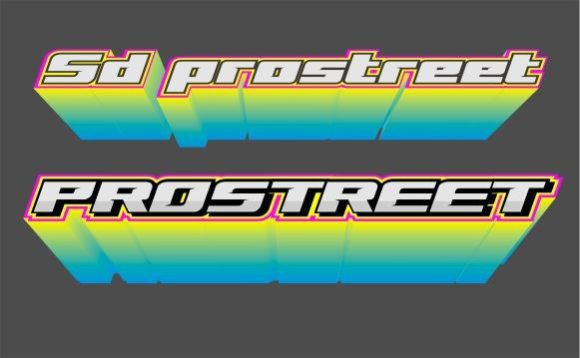
Prepare yourself to be captivated by the futuristic charm of Sd Prostreet Font, a captivating creation by Siinsticker that seamlessly blends the worlds of speed and elegance. Inspired by the high-octane energy of motorsports, this display font exudes a dynamic and energetic spirit that is sure to leave a lasting impression.
Unleash your creativity and let your designs take center stage with Sd Prostreet Font. Its bold and distinctive characters are a symphony of modernity and innovation, captivating your audience with every stroke. The font's sleek lines and sharp angles embody the essence of speed, making it the perfect choice for projects that demand a sense of urgency and excitement.
Step into the realm of limitless possibilities with Sd Prostreet Font. Its versatility extends far beyond the realm of logos and posters. Imagine your designs adorned with this font, creating a captivating experience that transcends boundaries. Product designs, games, and even stickers come to life with an unmatched level of vibrancy.
Transport your designs to the forefront of innovation with Sd Prostreet Font. Embrace the spirit of adventure and let your imagination soar. The future is now, and it's waiting for you to seize it. Buckle up and prepare for a journey of creativity like never before.